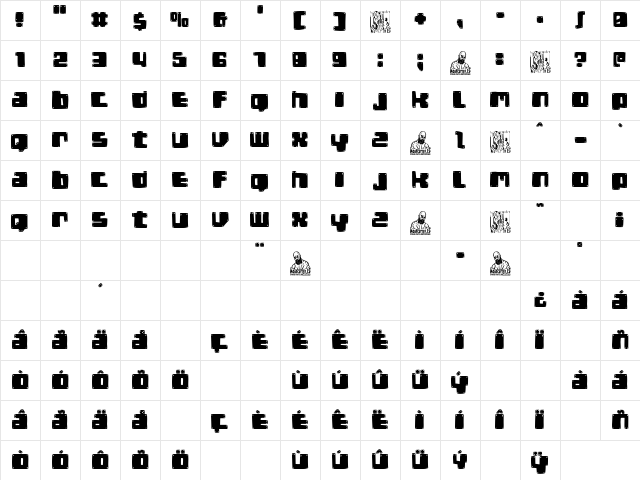
Robot Socialista Regular Free Font
Robot Socialista Regular
Designer: Woodcutter Manero
Design Context for Robot Socialista
Robot Socialista is a composed and adaptable typeface that performs quietly and consistently across a wide range of design contexts.